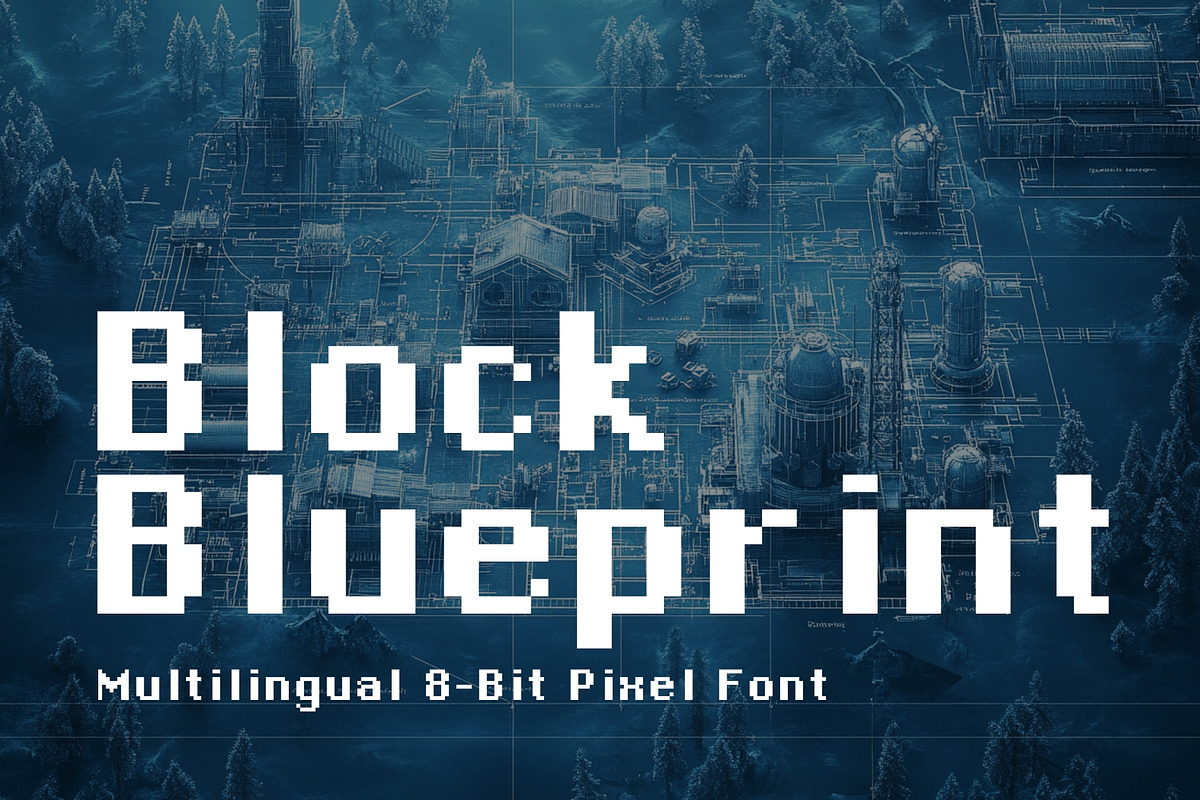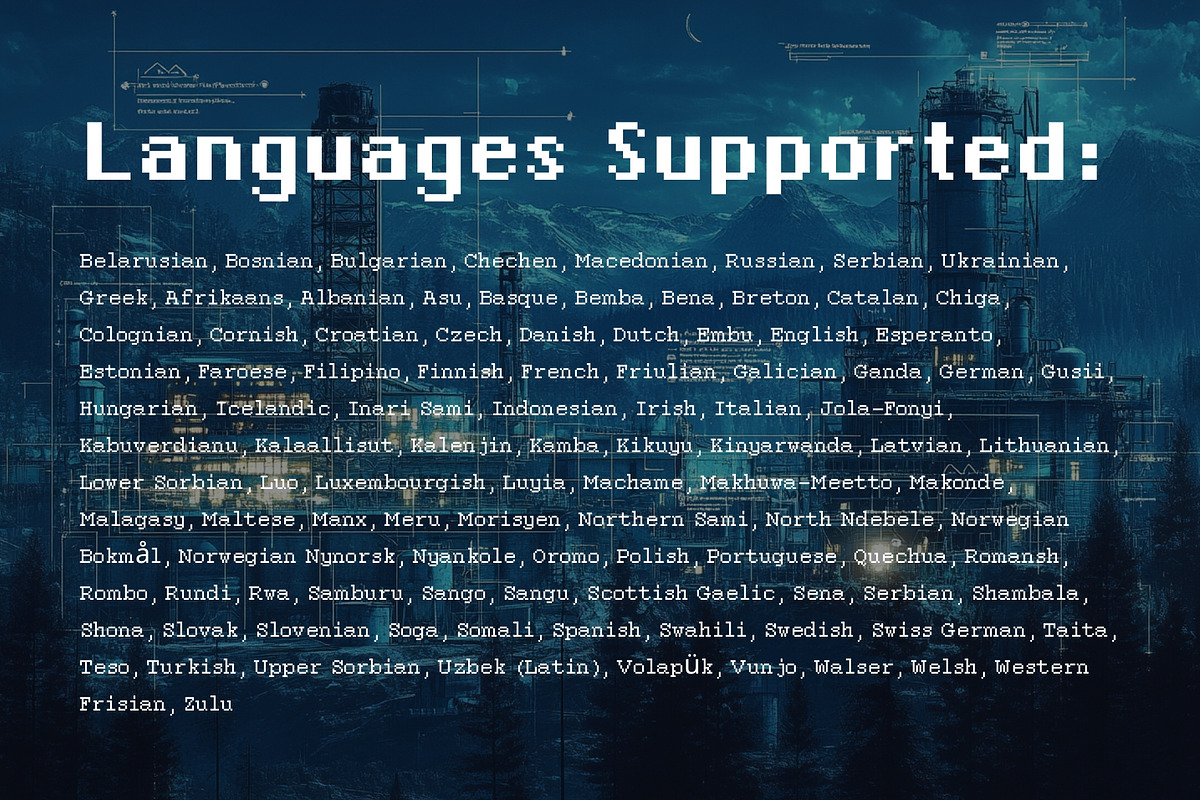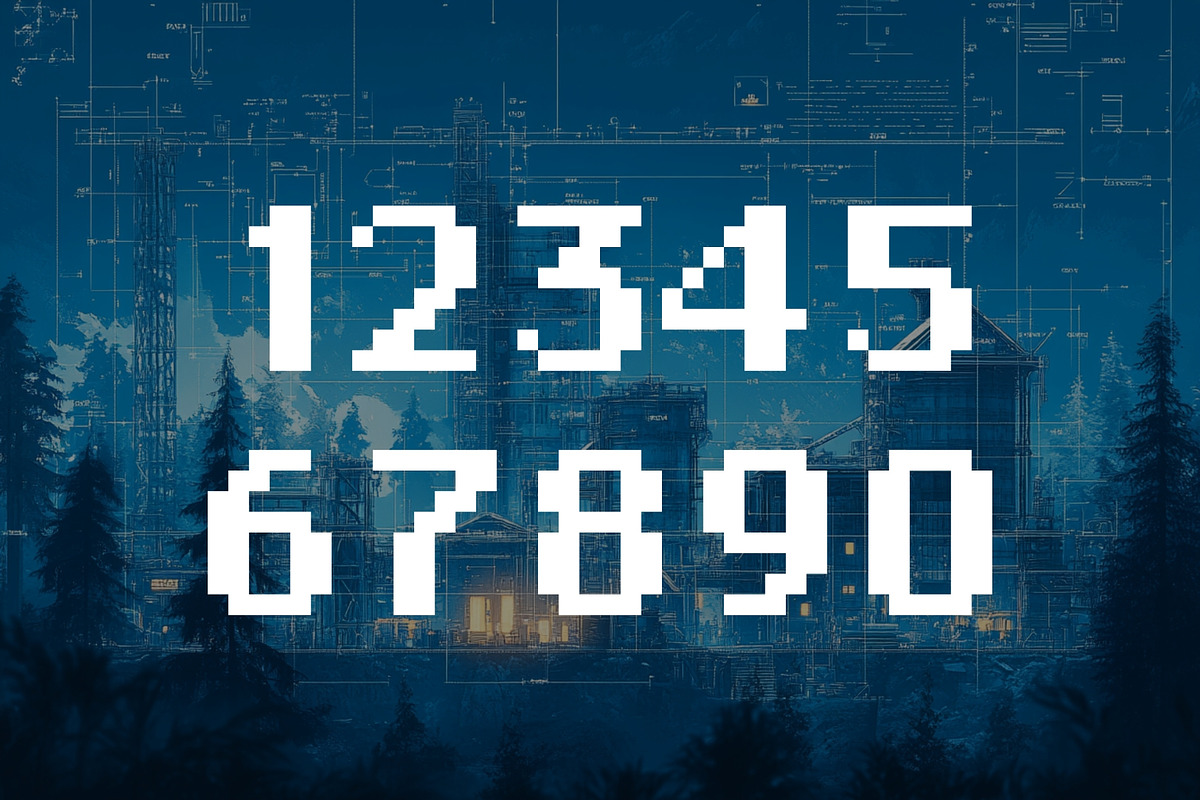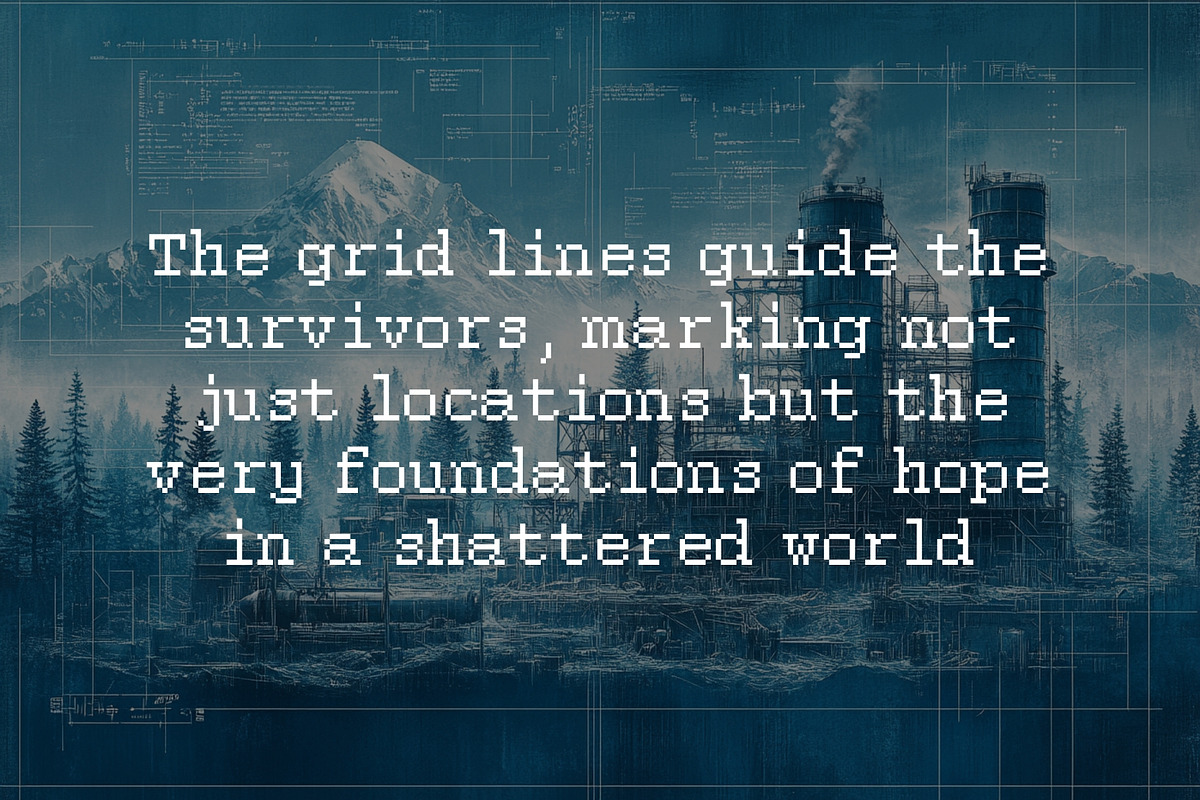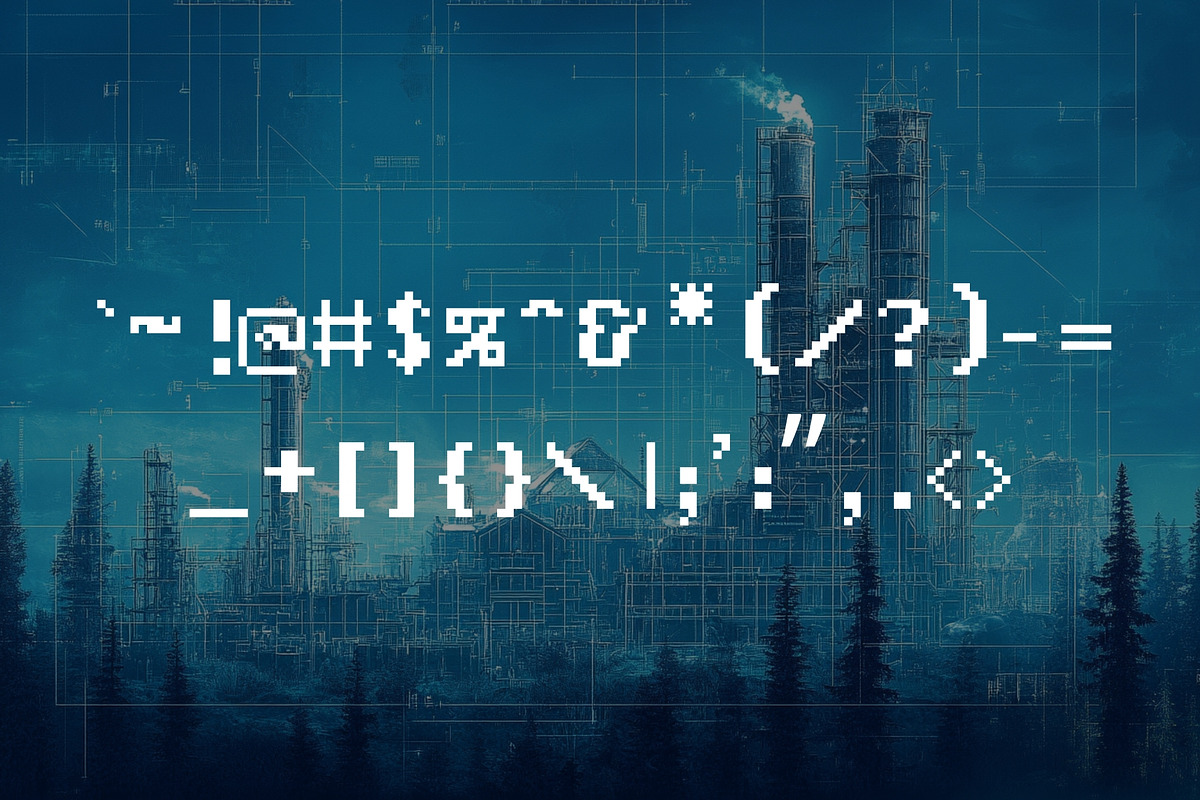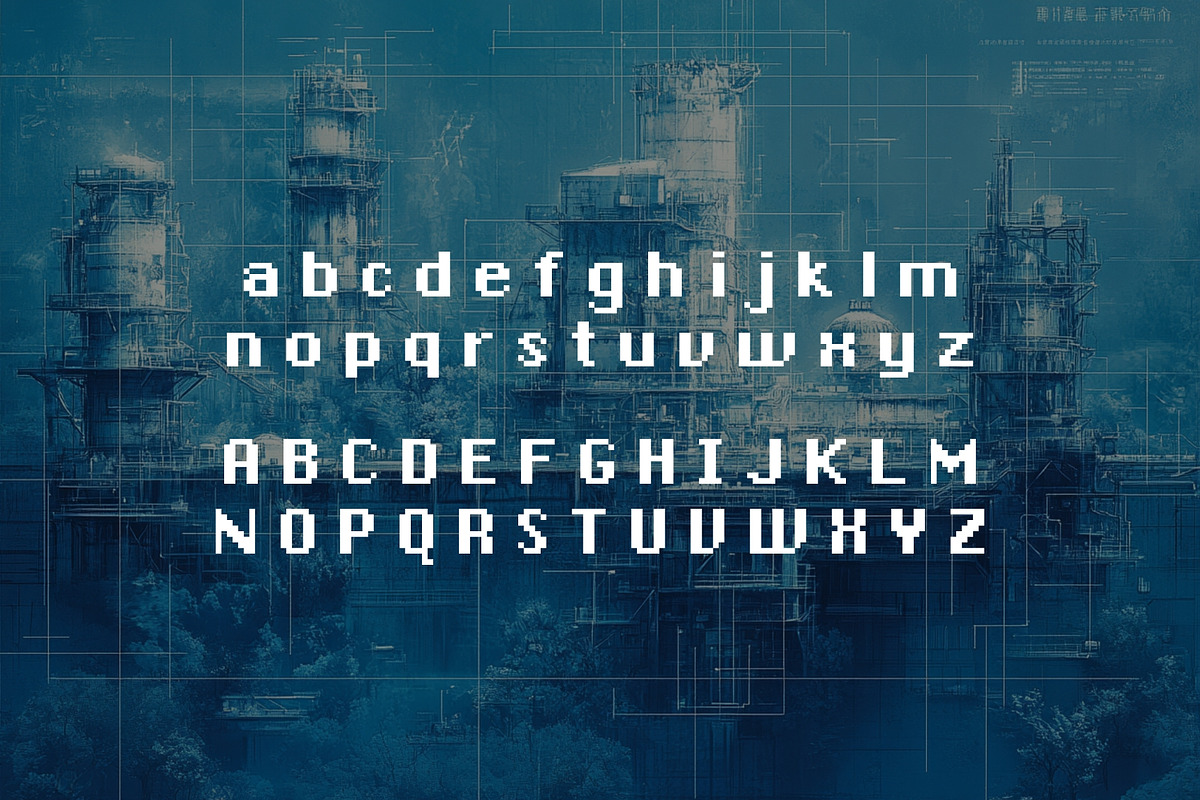
Block Blueprint - 8bit Pixel Font
Introducing Block Blueprint — a clean, legible, and professional 8-bit pixel font designed to bring precision and clarity to your projects. Perfect for digital designs, retro games, and any project in need of a pixelated aesthetic, this font combines the timeless appeal of 8-bit style with modern functionality. Featuring crisp, well-defined characters, Block Blueprint ensures maximum readability across various screen sizes and resolutions.
With support for over 100 languages, this versatile font is ideal for global applications, making it an excellent choice for tech, gaming, and digital content. Elevate your design with the sharp, straightforward elegance of Block Blueprint.